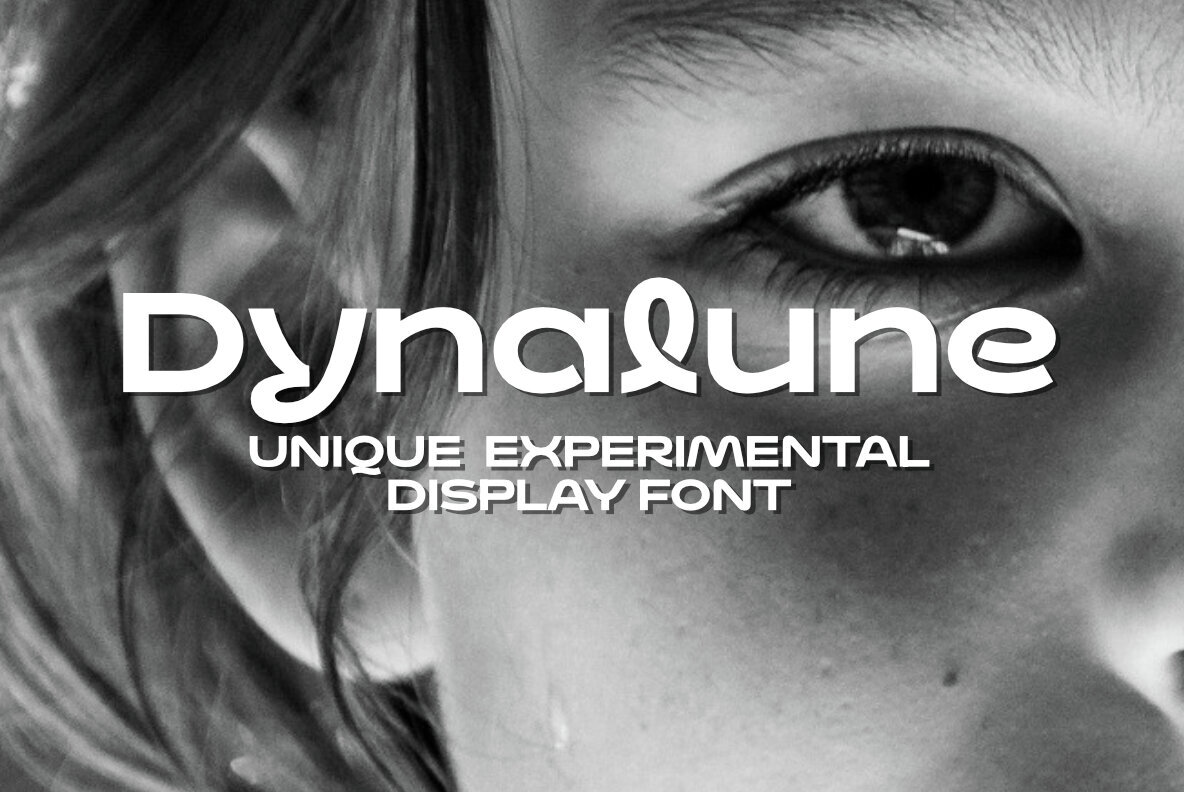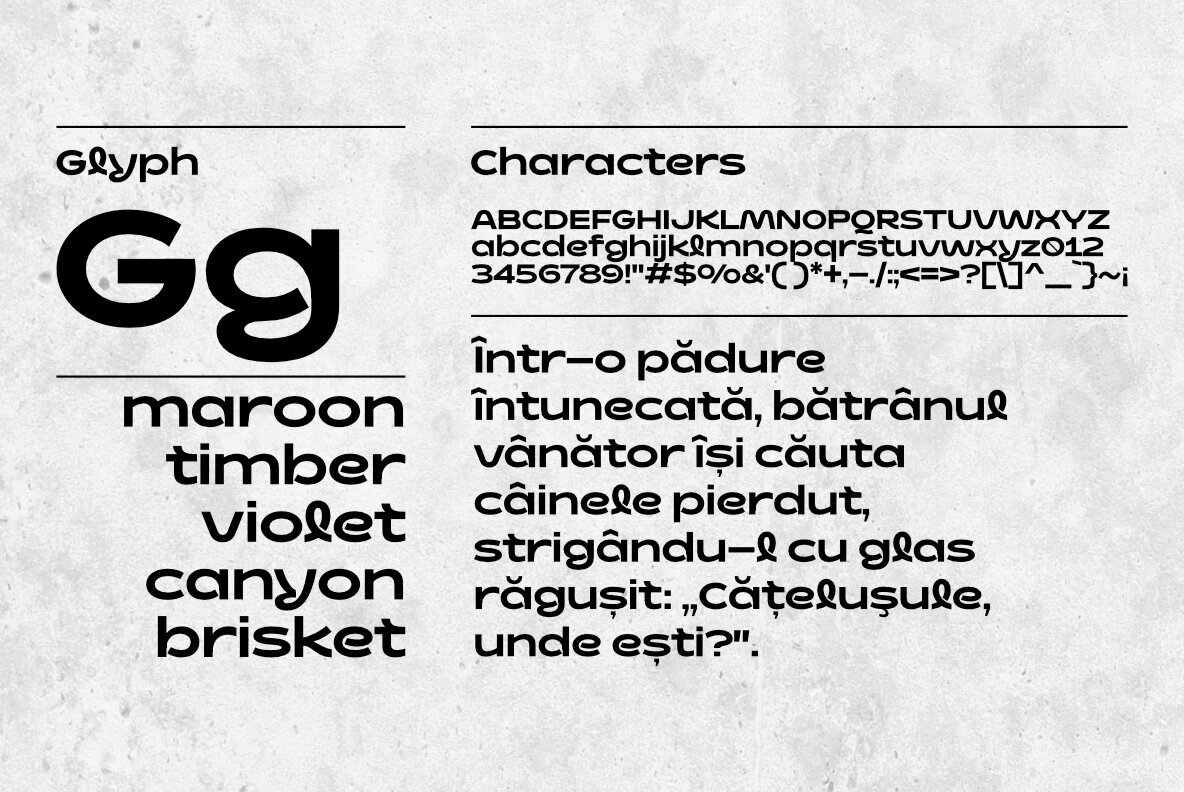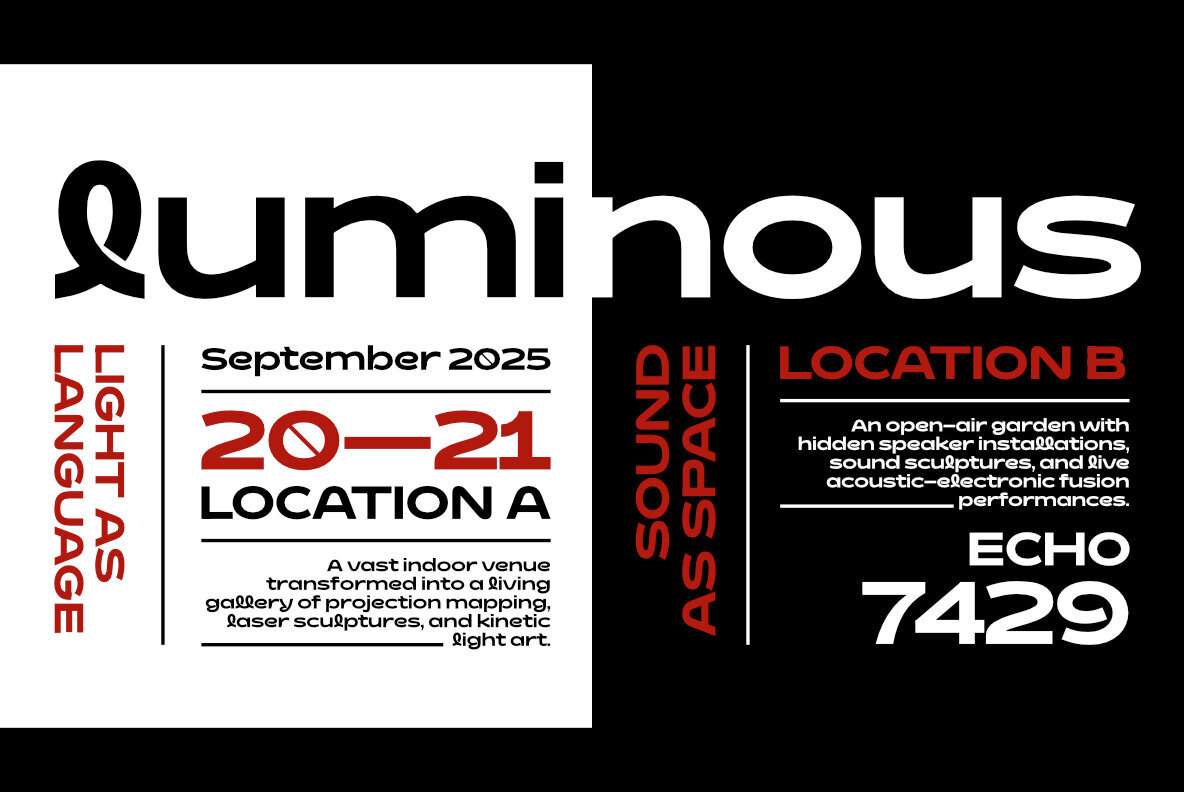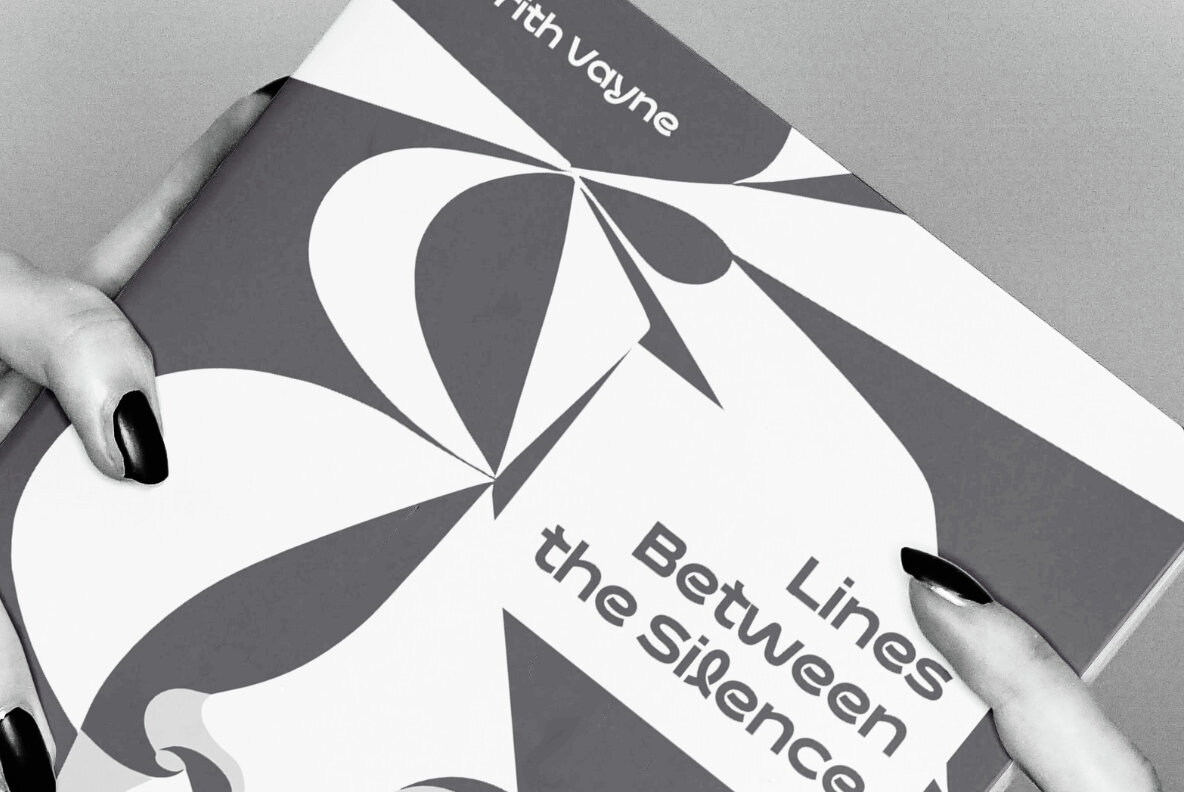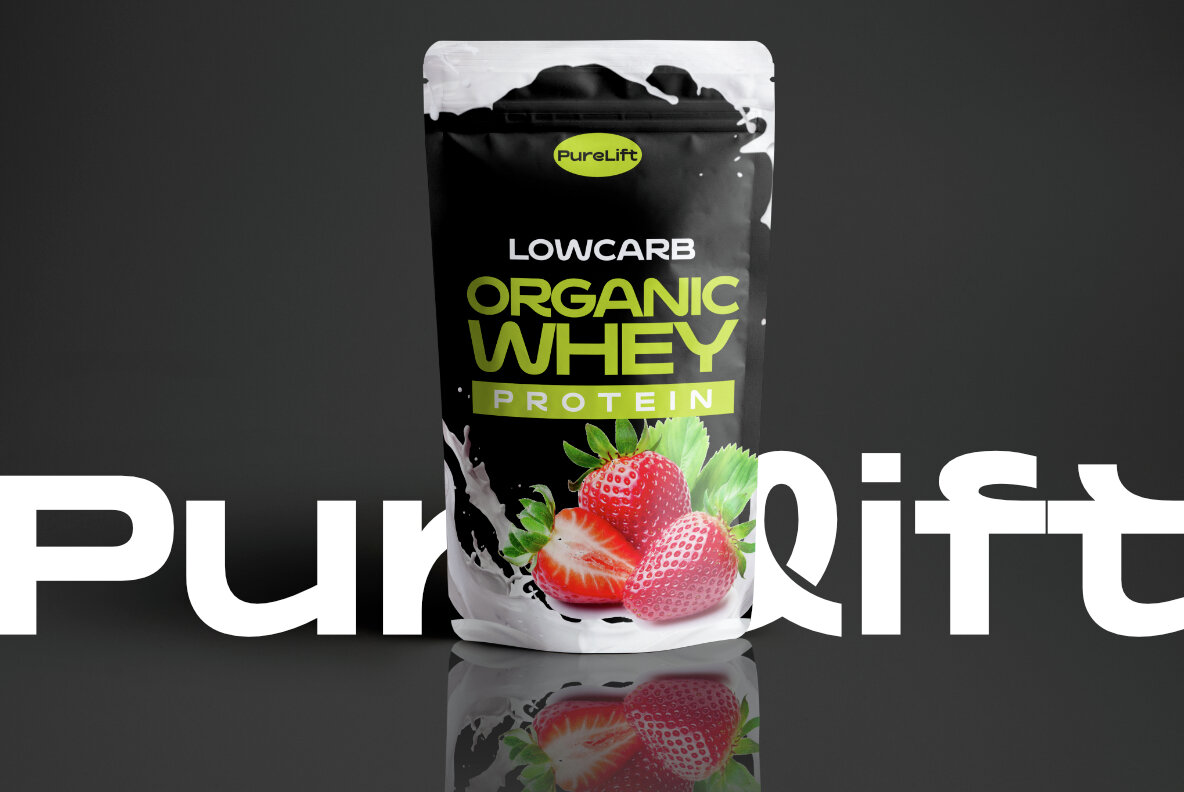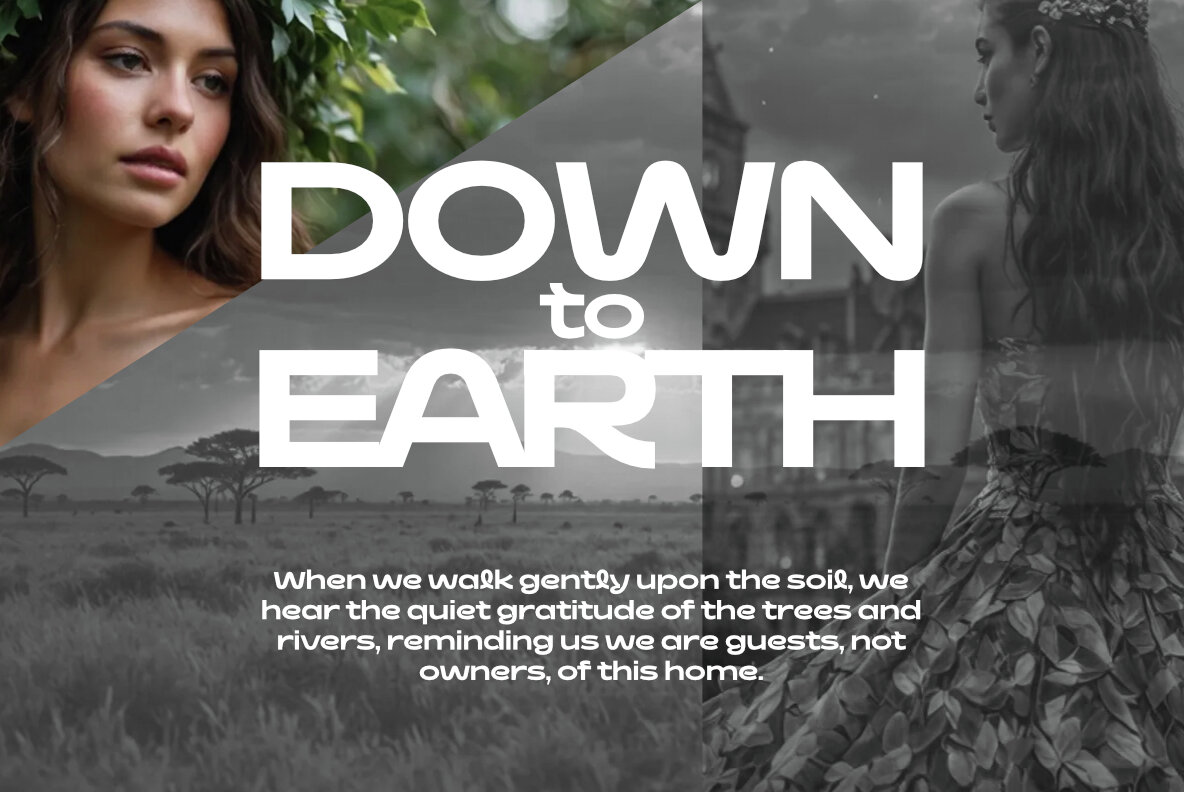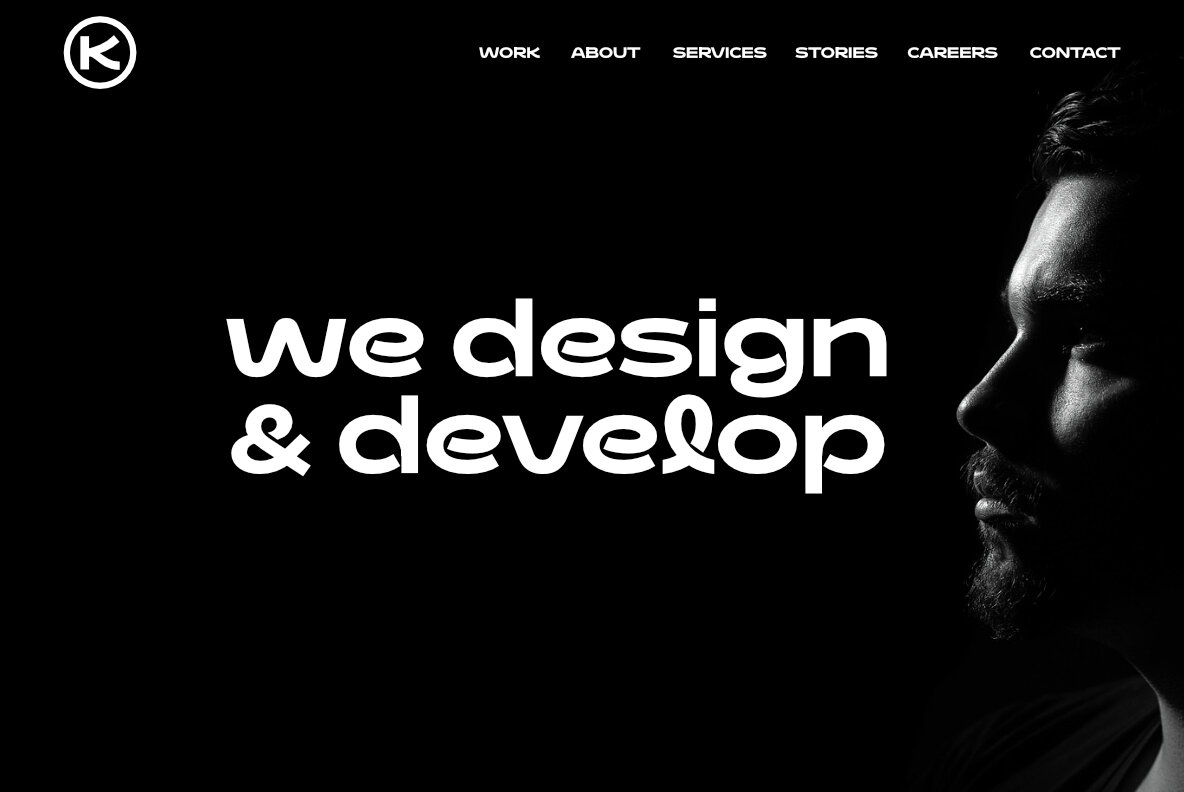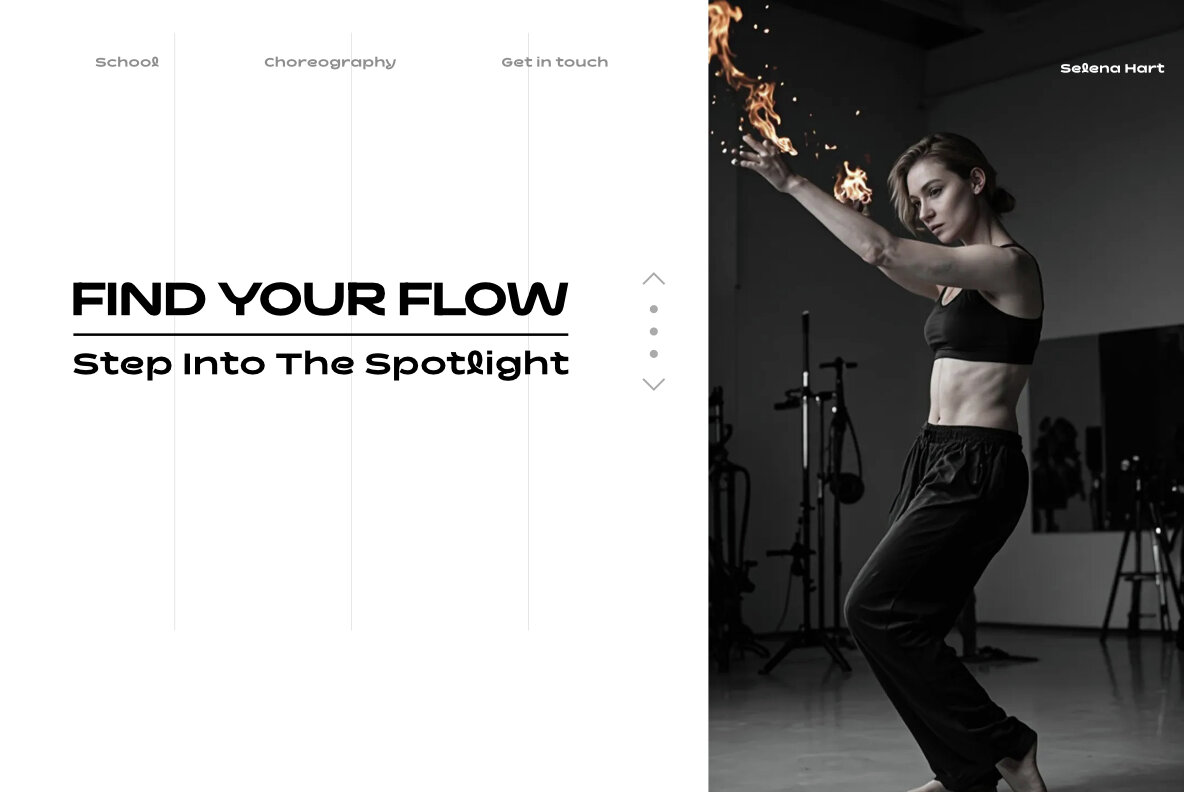
Dynalune Font
Dynalune Bold
Dynalune is an experimental typeface that marries the clean precision of modern geometric sans serifs with subtle script-inspired nuances. Notable characters such as the letters 'l,' 'g,' and 'y' embrace the fluidity of handwritten forms, injecting a dynamic and expressive flair into the sturdy sans serif framework. This typeface elevates branding, posters, editorials, headlines, and creative projects by offering both clarity and unexpected visual intrigue. With its bold and avant-garde aesthetic, Dynalune conveys a distinctive personality that makes each word come alive.Dynalune: A Dynamic Sans Serif with Script Influences